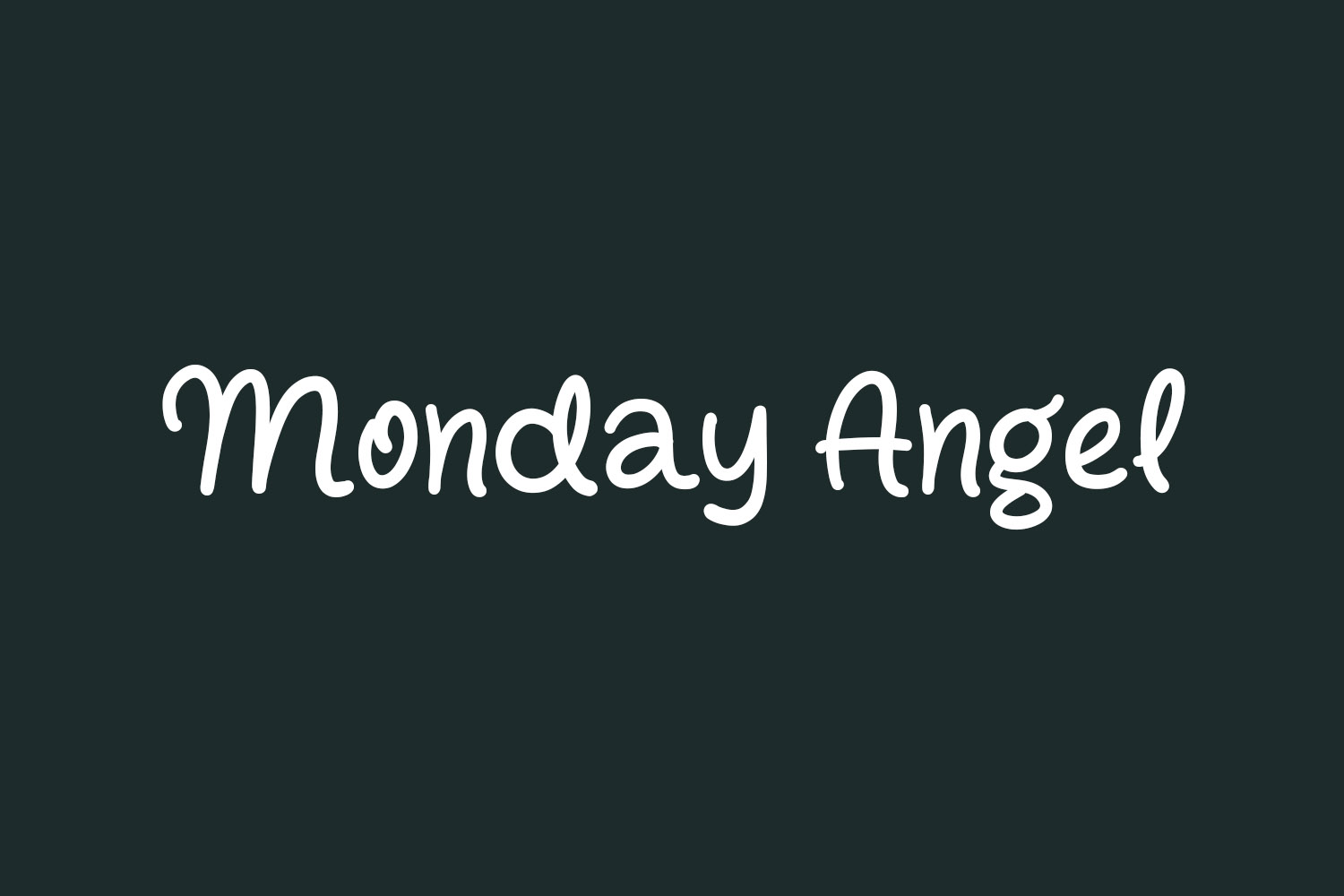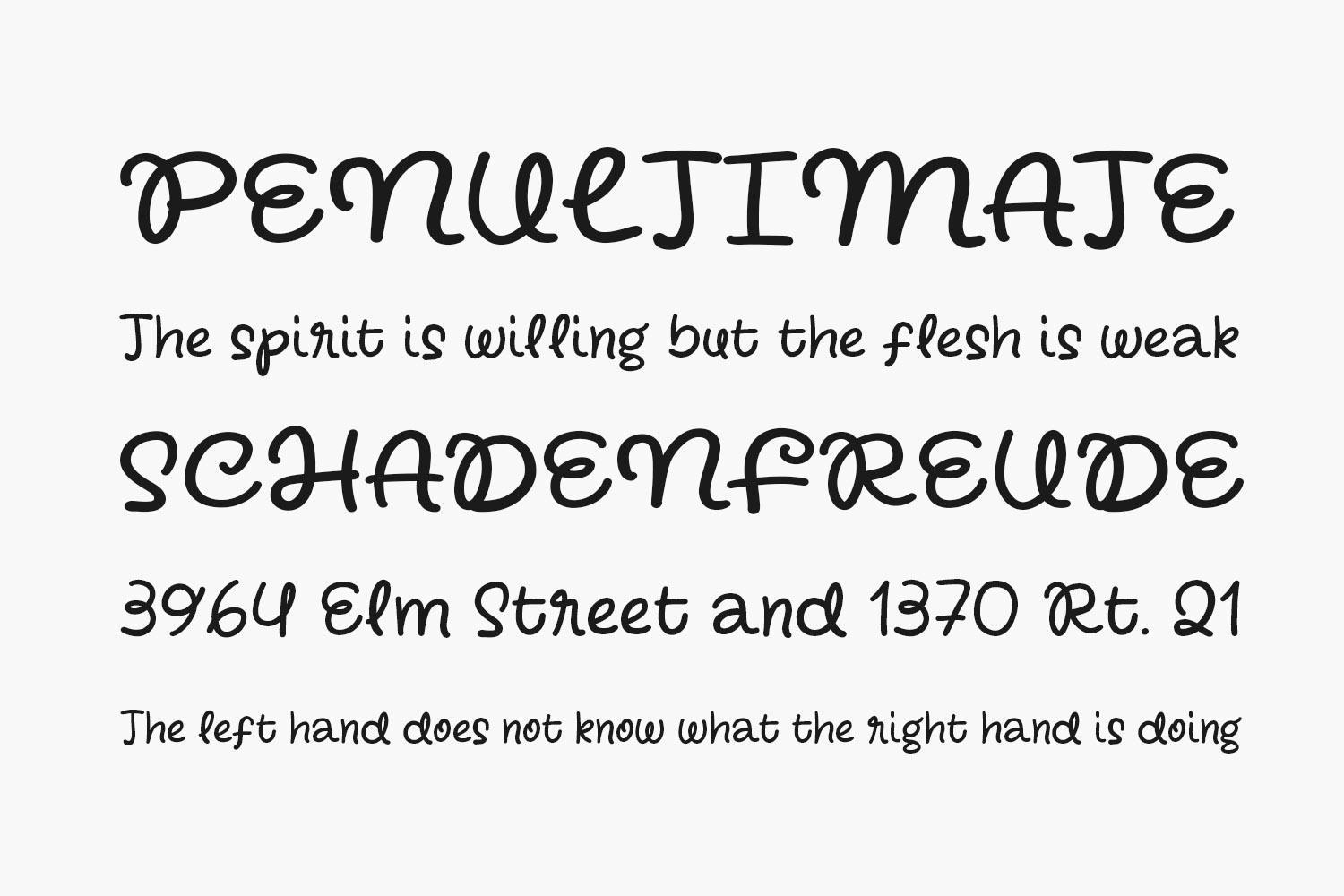
Discover Monday Angel Free Font, a modern and charming font tailor-made for posters, logos, magazines, book covers, banners, and beyond! Acquire this remarkable font and unleash its potential to craft delightful designs. Its versatility allows seamless integration with a vast array of projects, enhancing your creative concepts and making them truly eye-catching. Monday Angel Free Font is free for personal or commercial use.